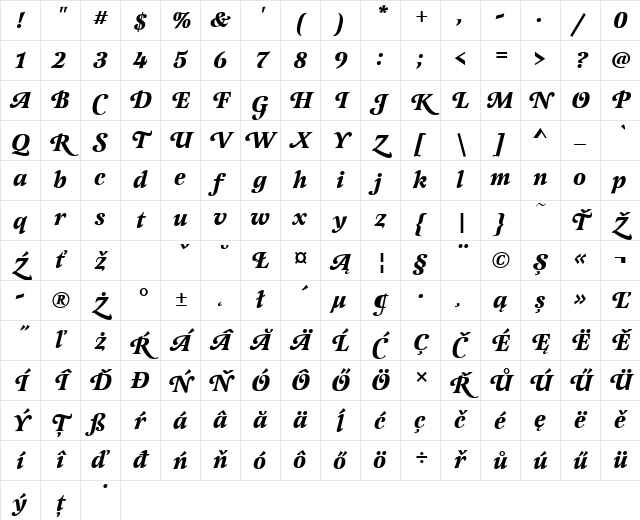
LatienneSwaTEE Bold Italic
LatienneSwaTEE Family
Design Context for LatienneSwaTEE
LatienneSwaTEE is a composed and adaptable typeface that performs quietly and consistently across a wide range of design contexts. The slanted form adds forward momentum and visual energy. Its bold stroke weight gives it real presence on the page.